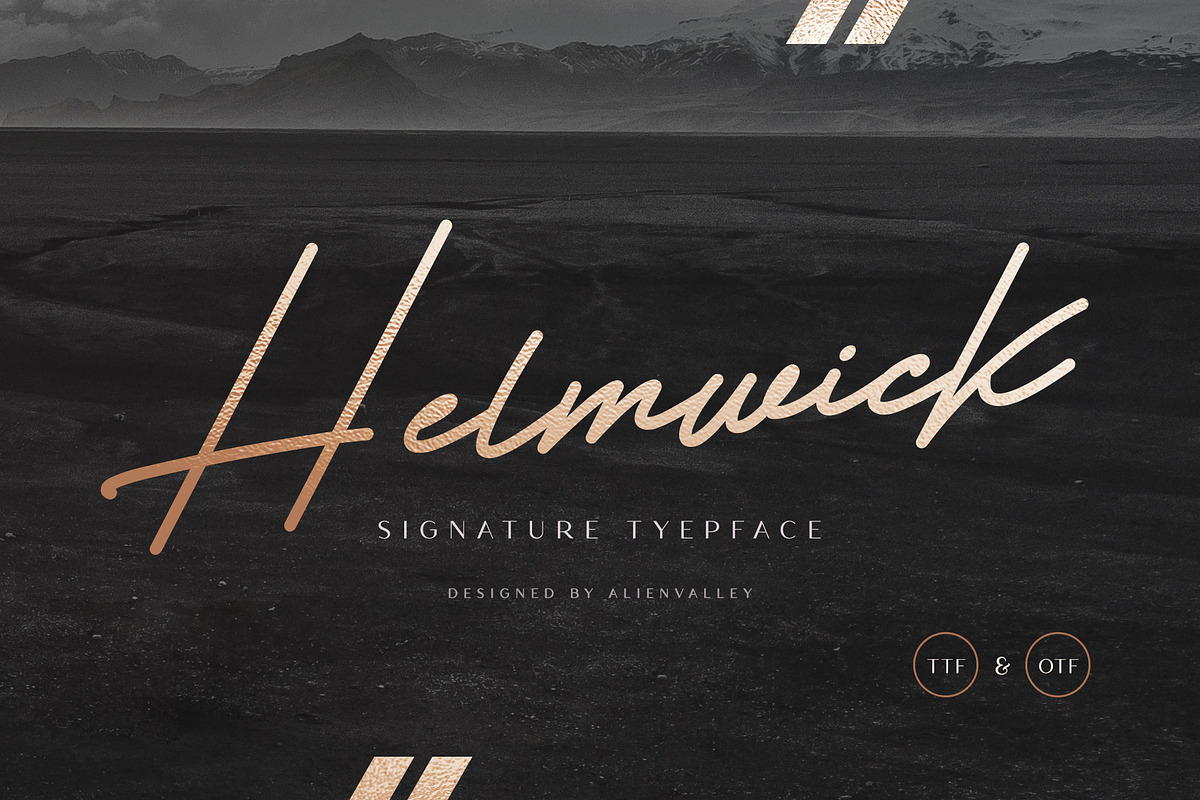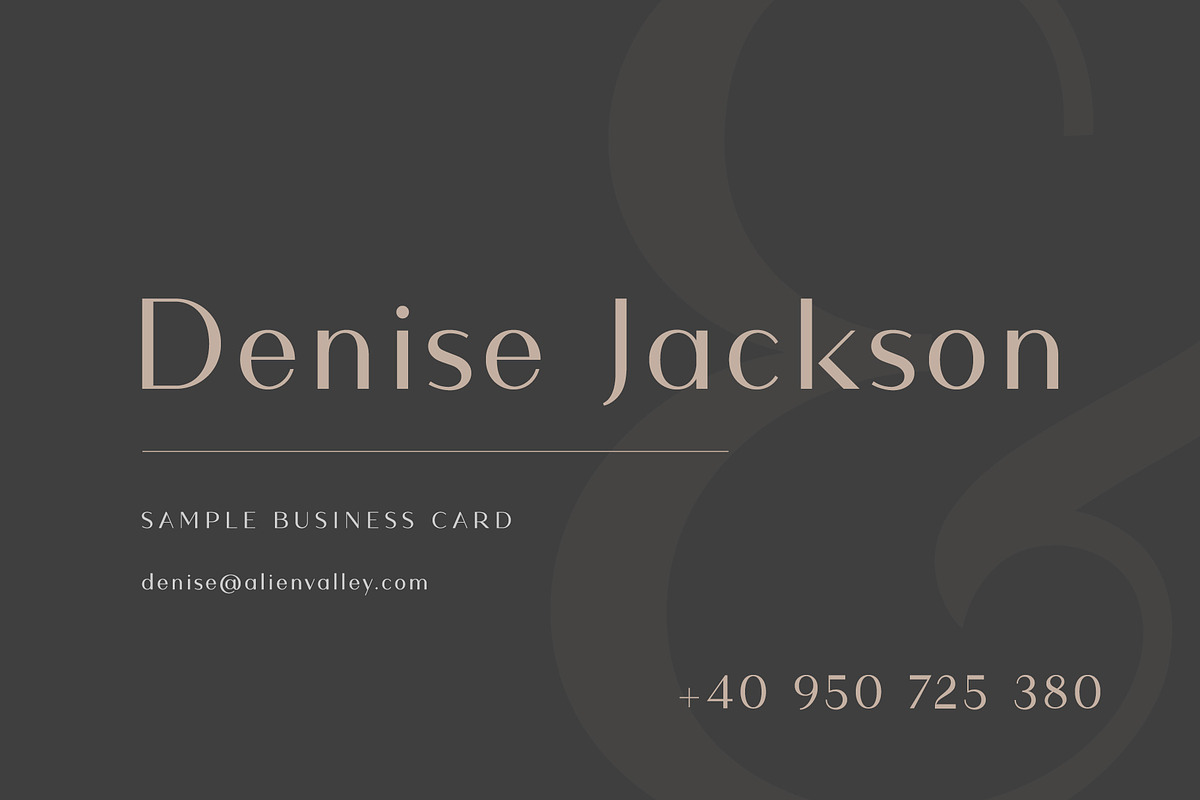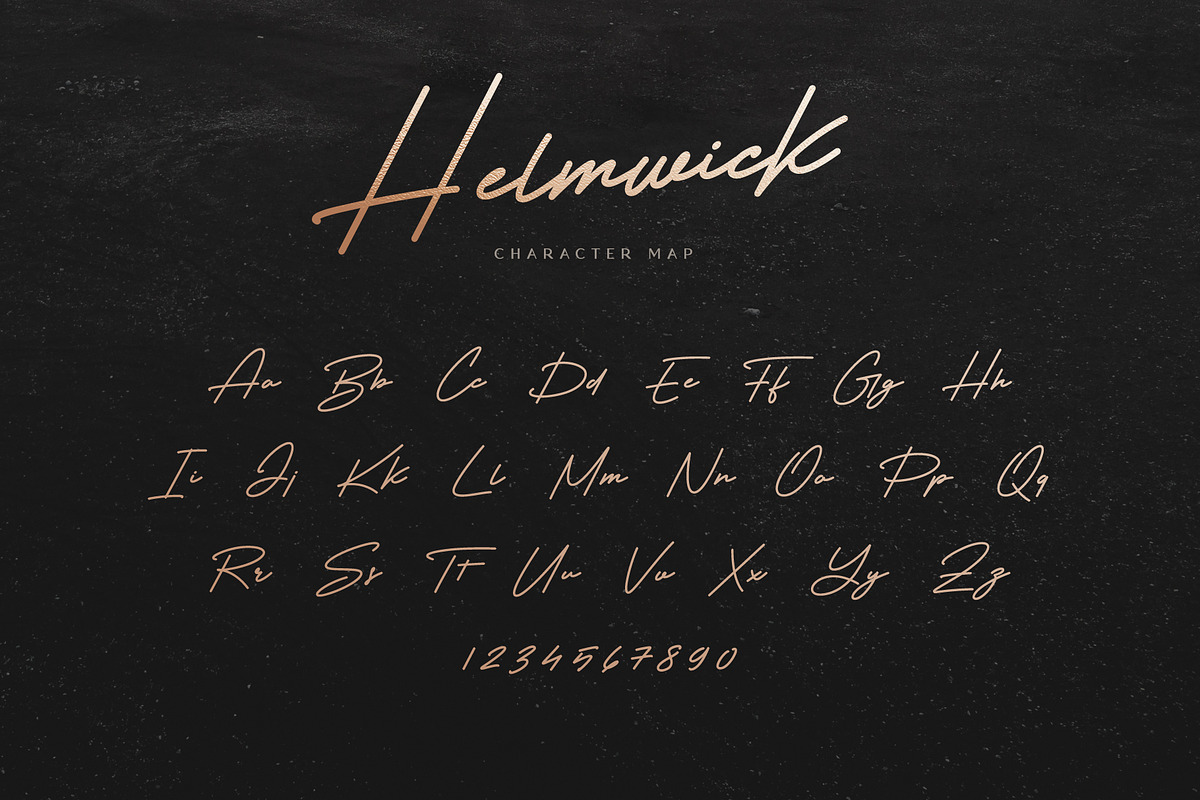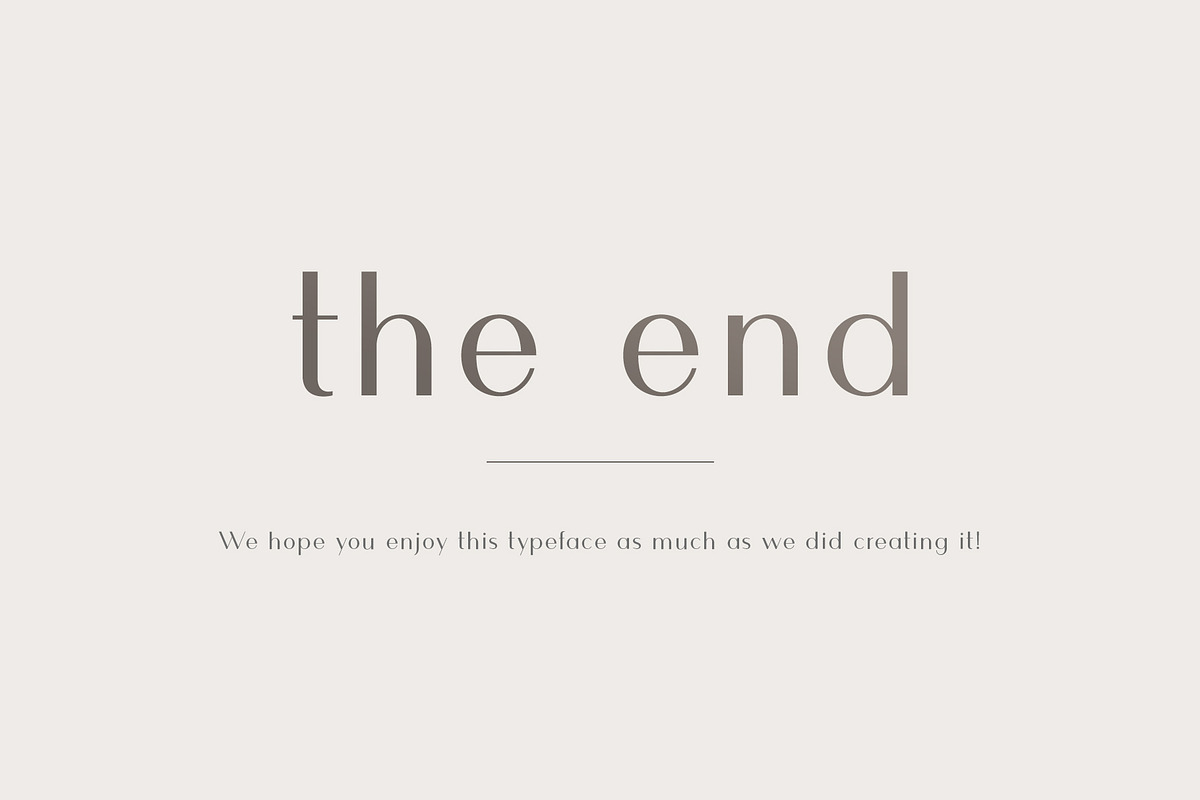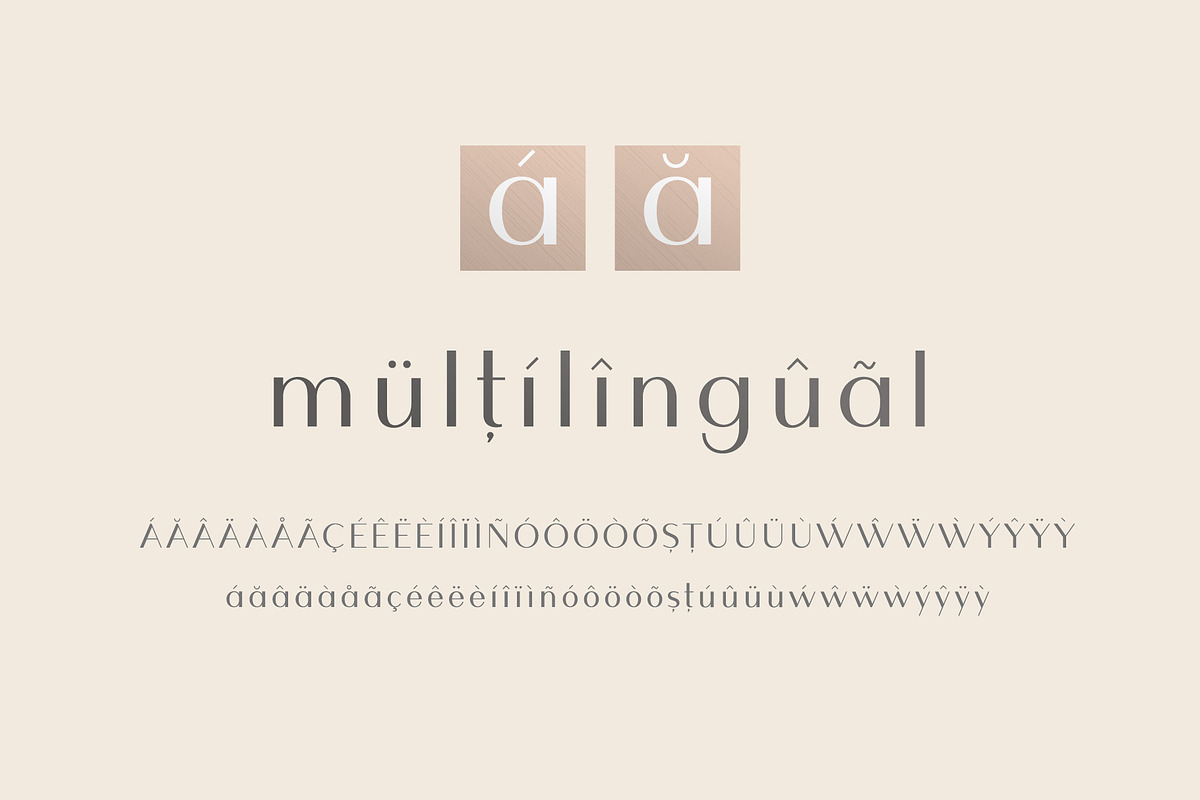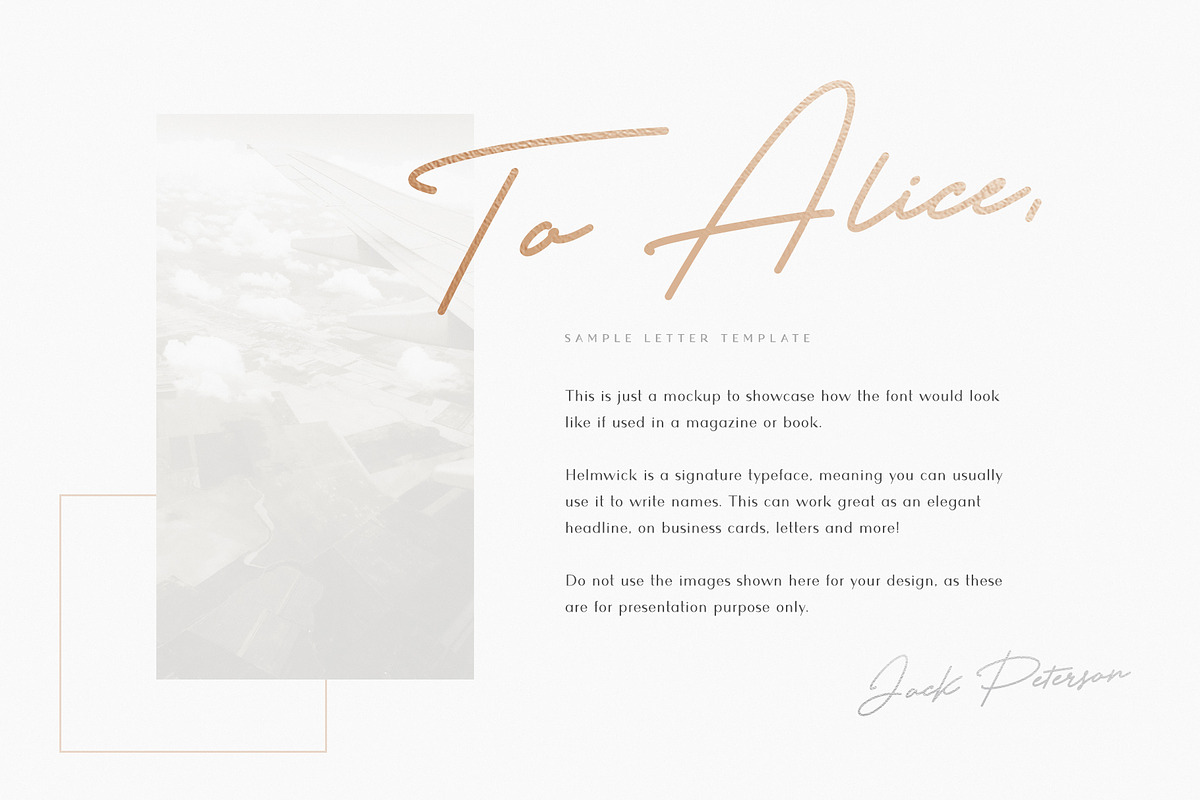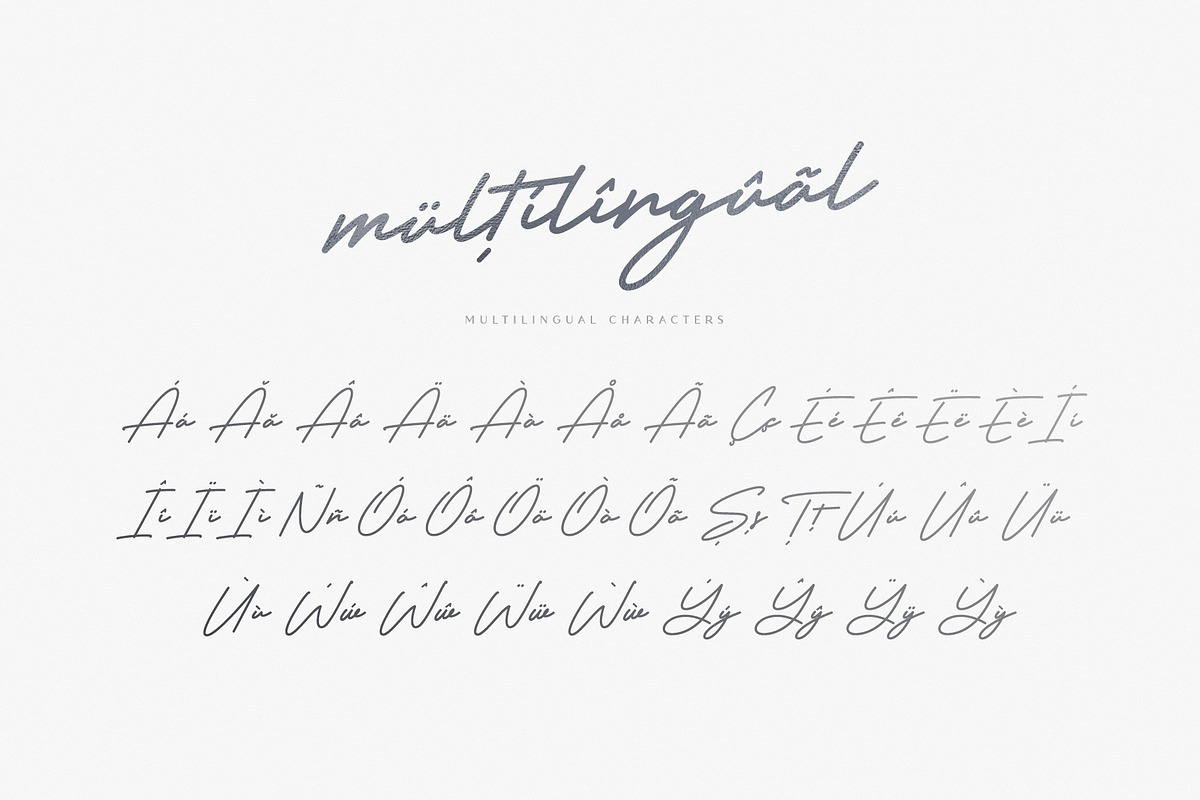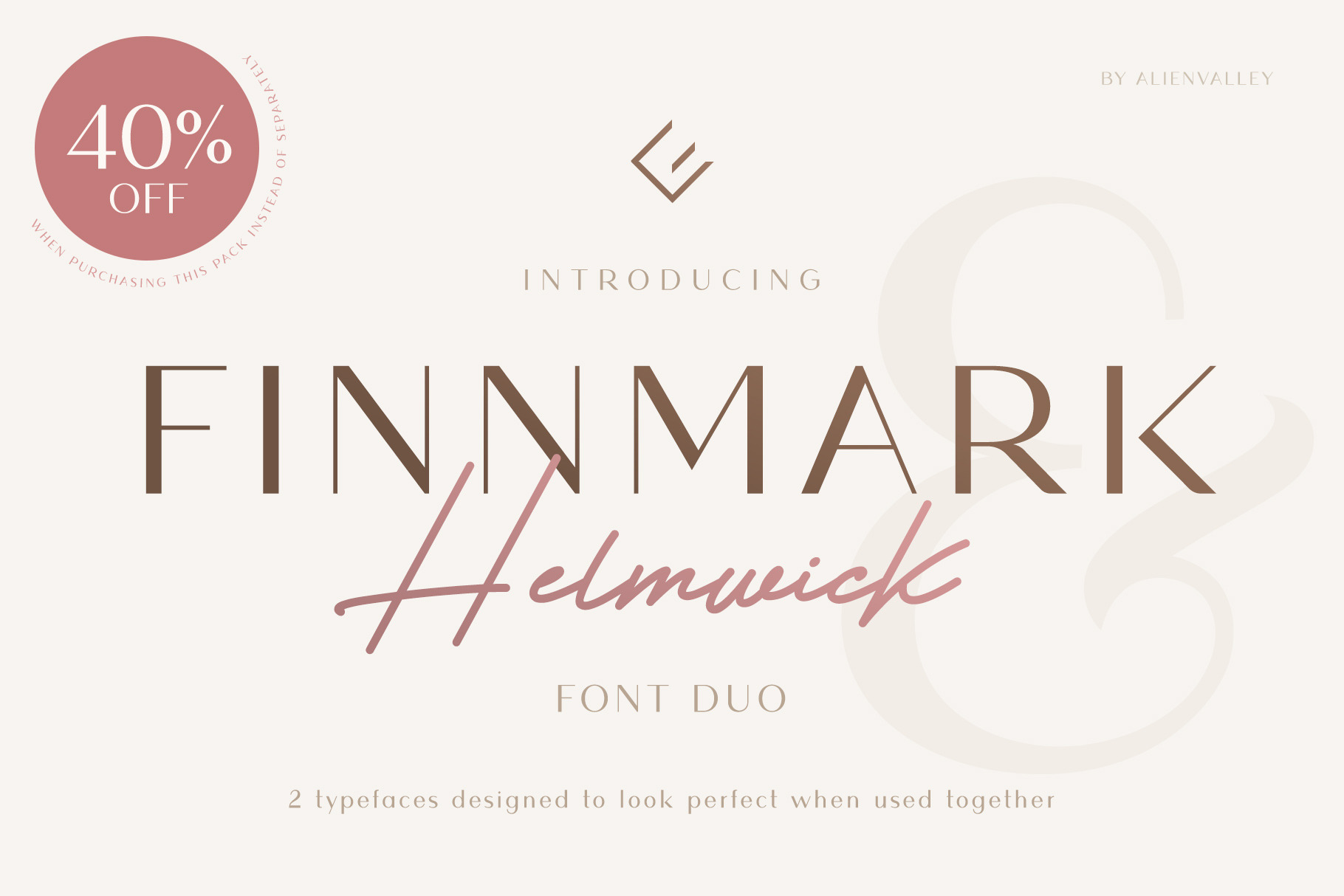
Finnmark & Helmwick - Font Duo
The fonts were designed to look perfect when used together and we released this pack so you can get them both for almost the price of one!
FINNMARK FEATURES:
- 2 Styles (Regular, Italic)
- Oldstyle figures (uneven baseline for numbers)
HELMWICK FEATURES: